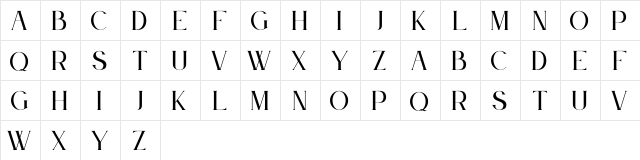
Le Jour Serif Regular
Design Context for Le Jour Serif Typeface
Le Jour Serif brings classic typographic sensibility to the table — its serifs and measured letterforms reflect centuries of print heritage.
Pro Tip: Set Le Jour Serif with slightly loose tracking in headlines to let each letterform's detail read clearly at display sizes.